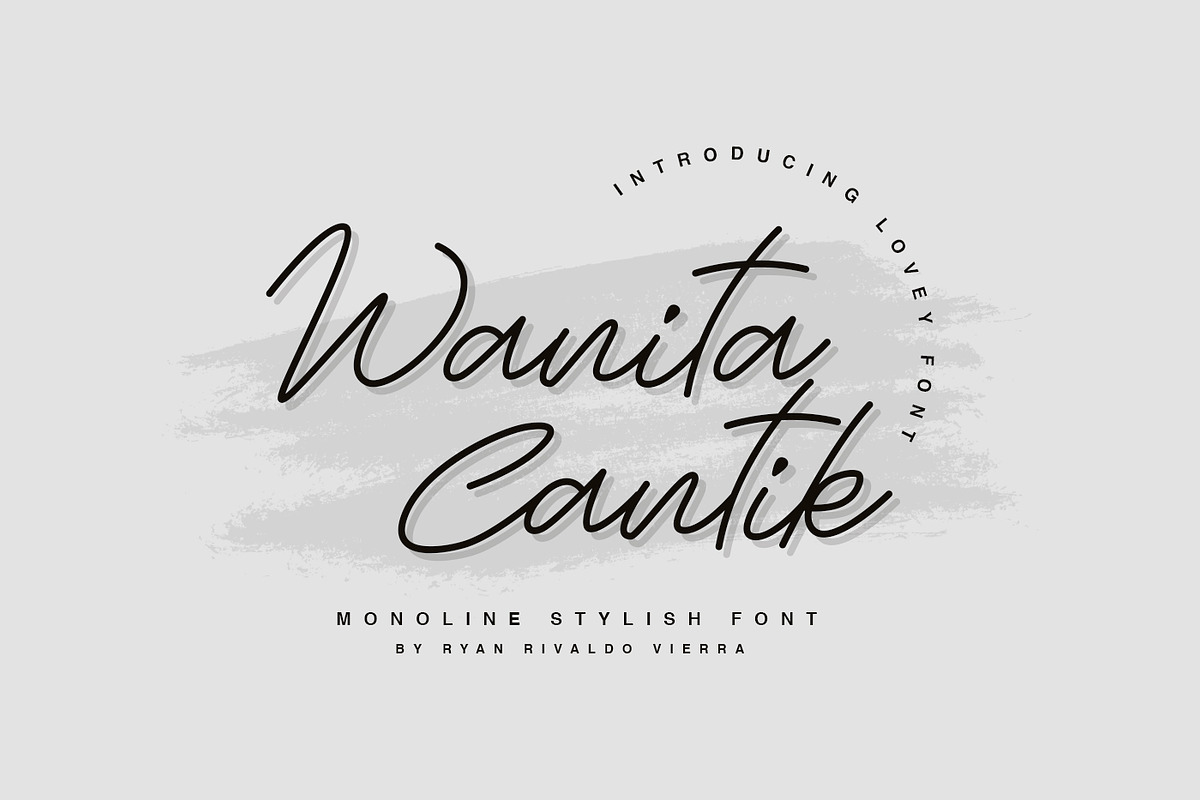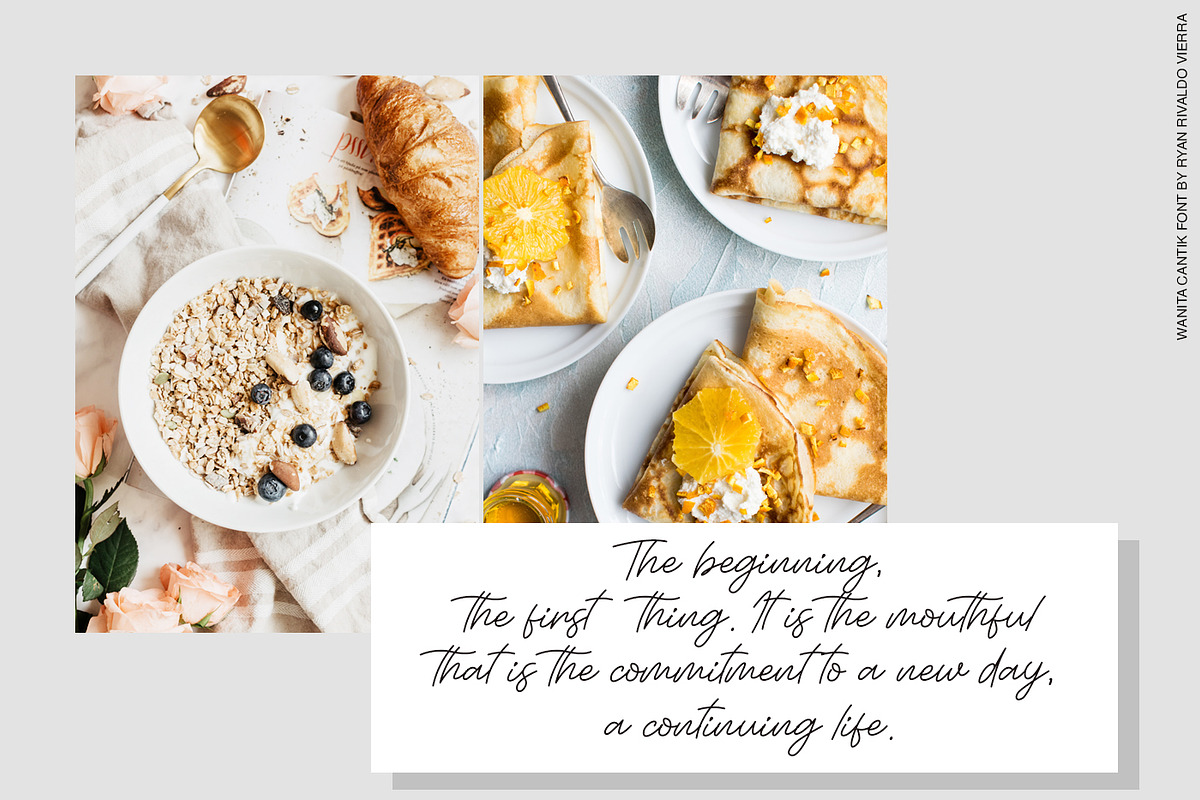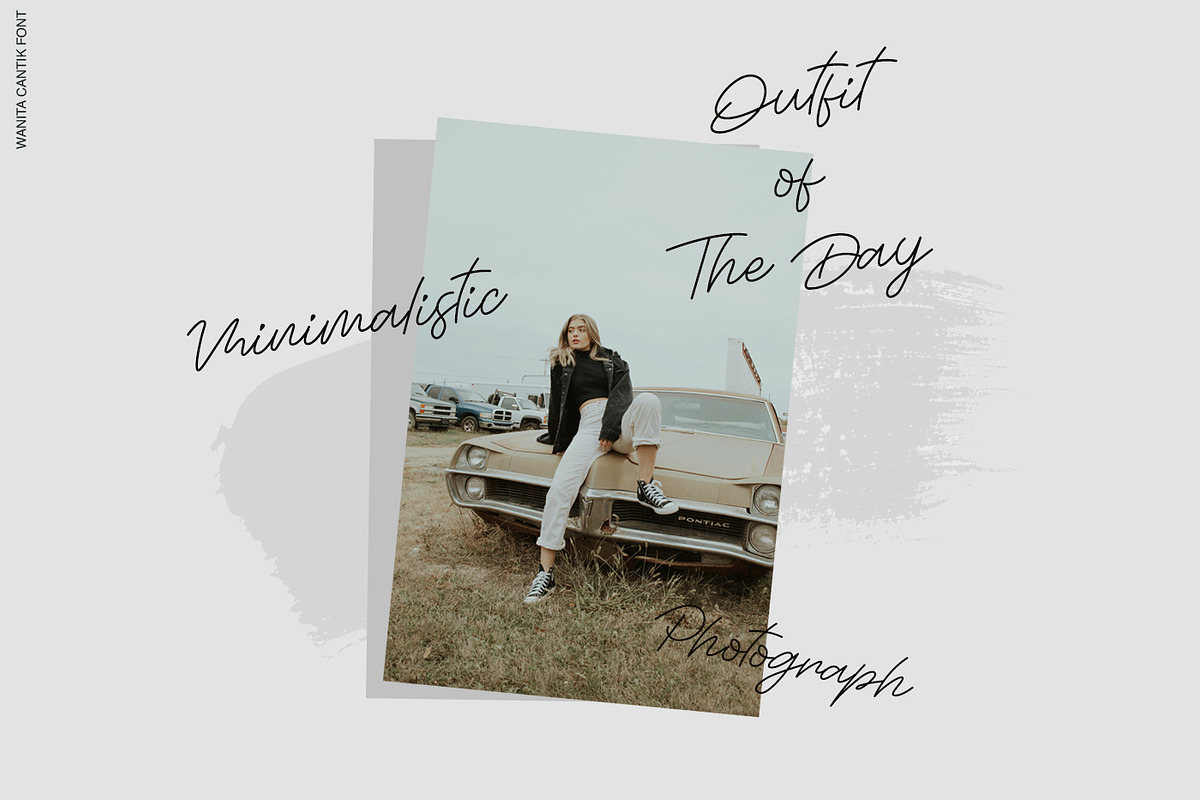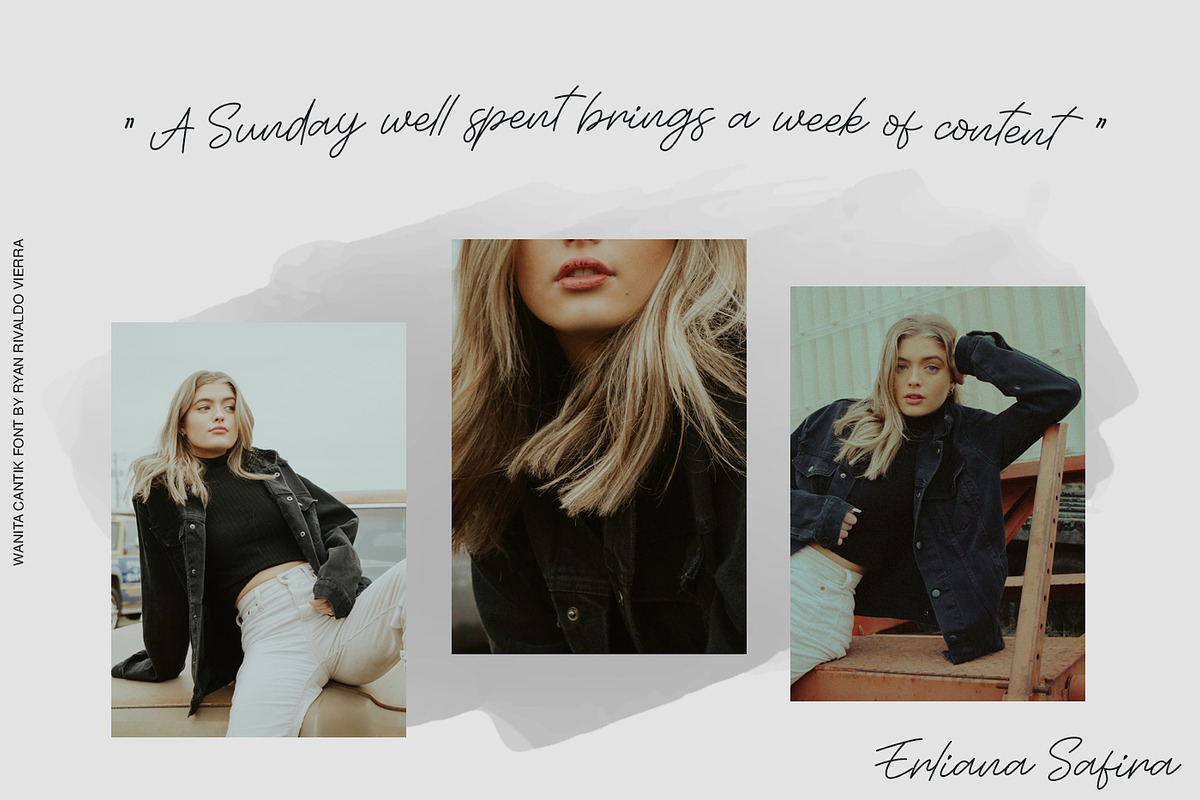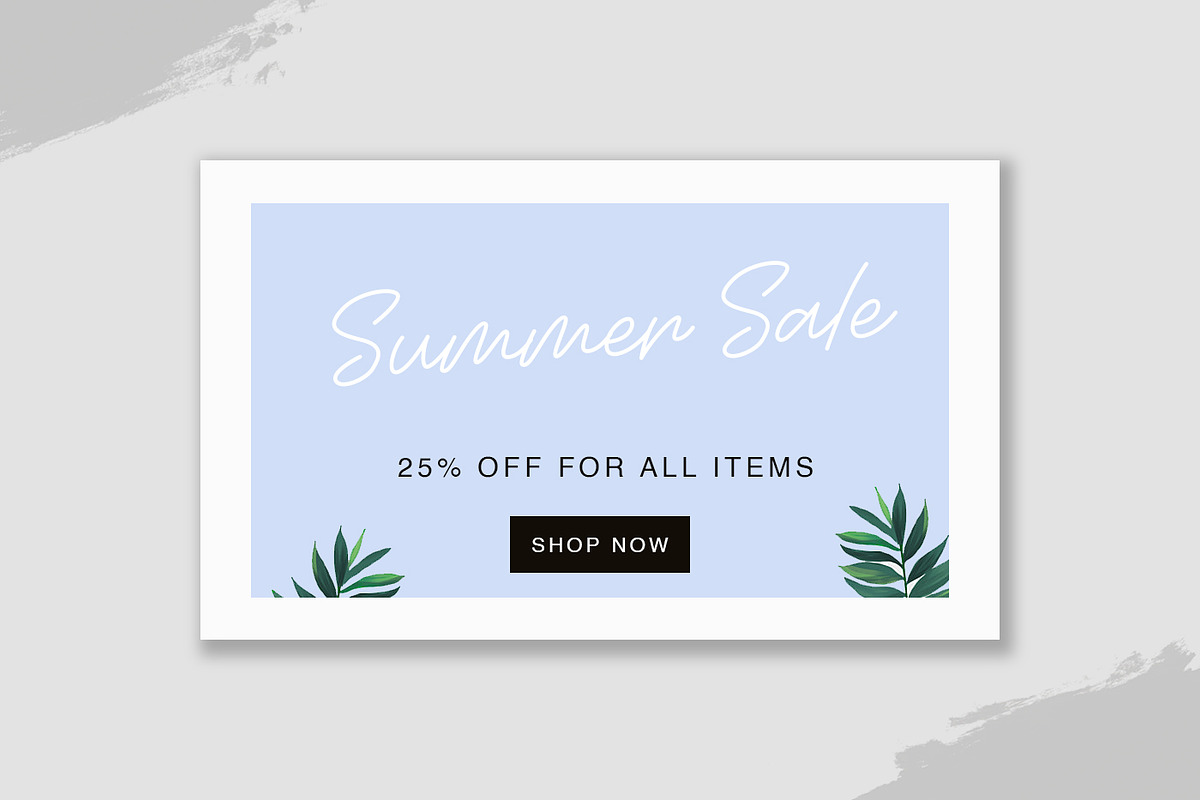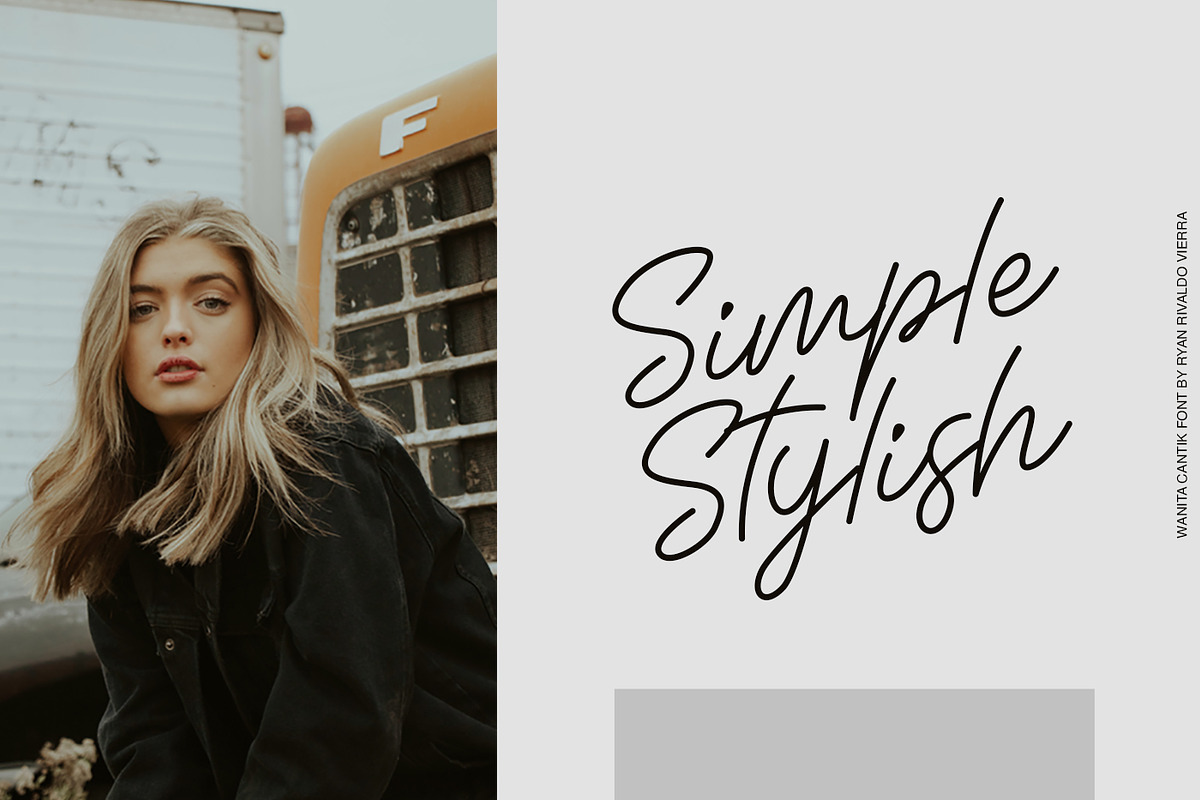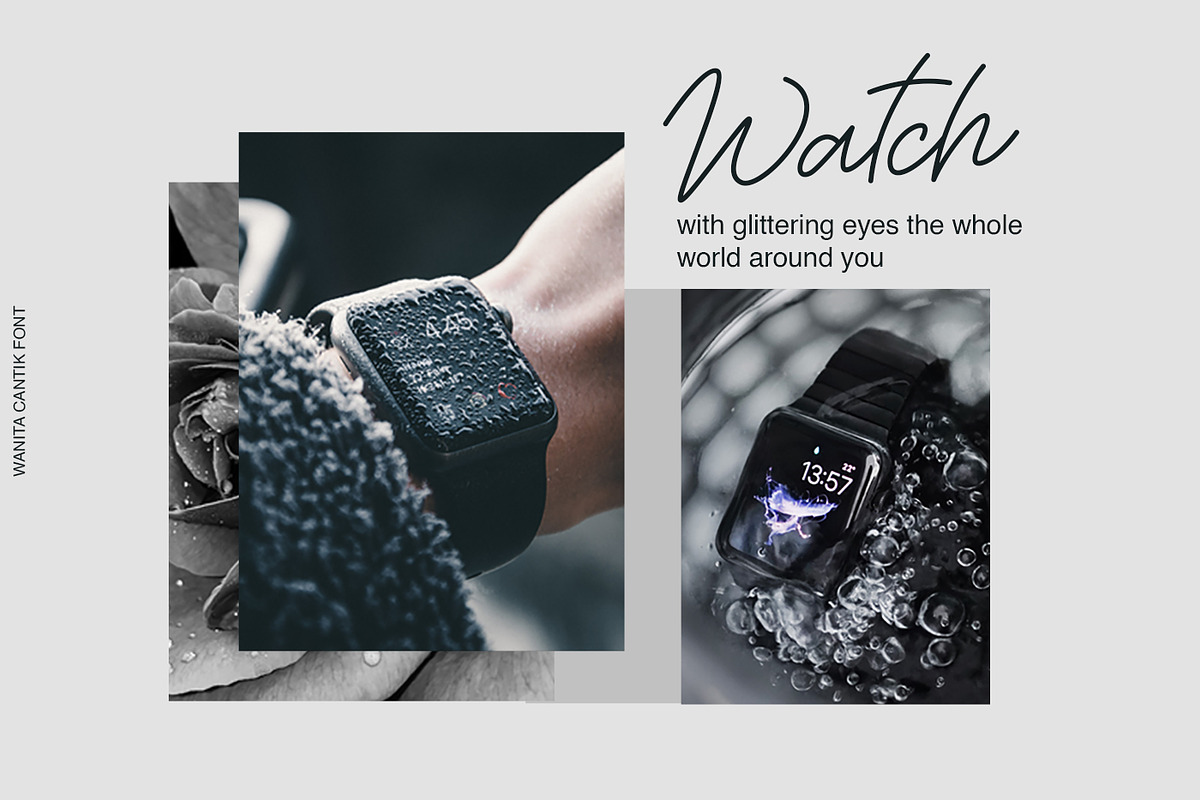
Wanita Cantik
Wanita Cantik is a sweet and delicate handwritten font. Dainty and joyful, this font will be ideal for writing wedding invitations, cards, or any other design that may need a romantic, personalized touch!